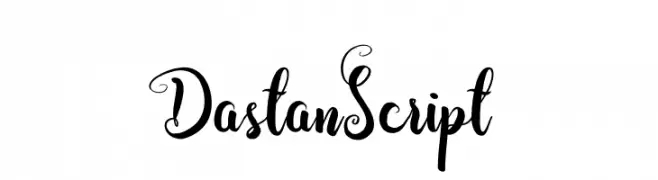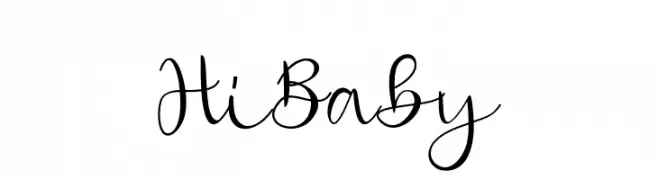
An elegant, flowing script font with a sophisticated, handwritten style.
A bold, slanted, and modern font with a dynamic and futuristic style.
A dynamic, flowing script font with an elegant, handwritten style.
A fluid and elegant script font with dynamic, flowing letterforms.
A playful, cursive script font with bold, flowing strokes and a festive charm.
An elegant and flowing script font with intricate letterforms and graceful curves.
A charming and elegant script font with flowing, cursive letters and bold numerals.
A whimsical and elegant script font with intricate swirls and flourishes.
An elegant, decorative font with intricate swirls and flourishes.
A playful and elegant script font with flowing, cursive letterforms.